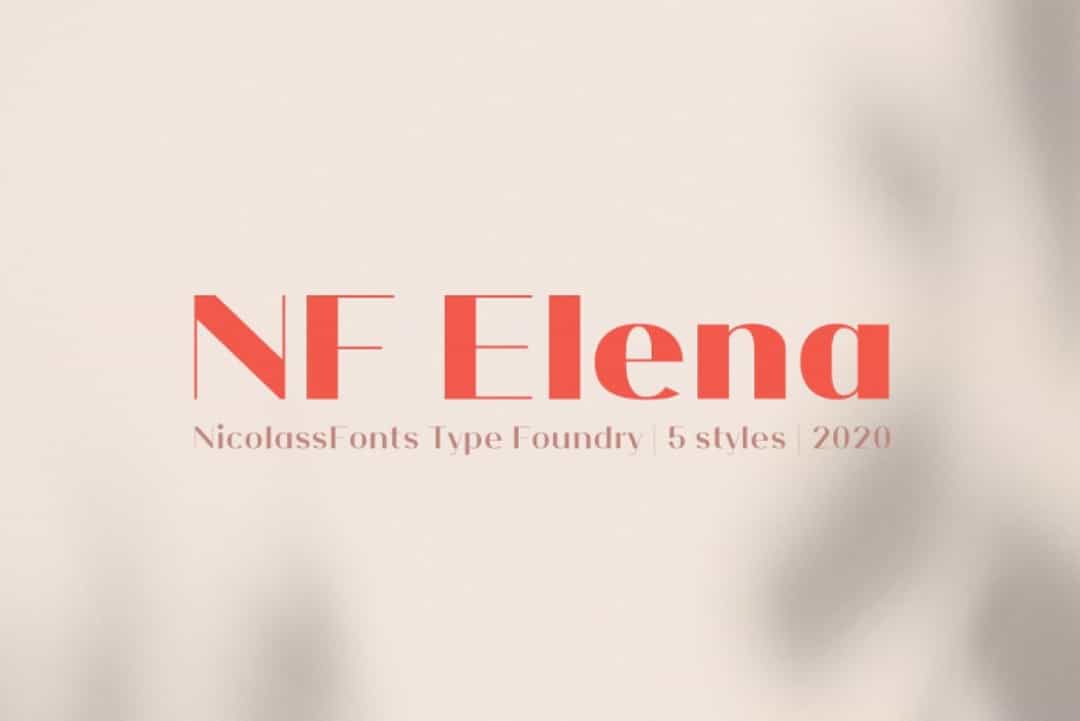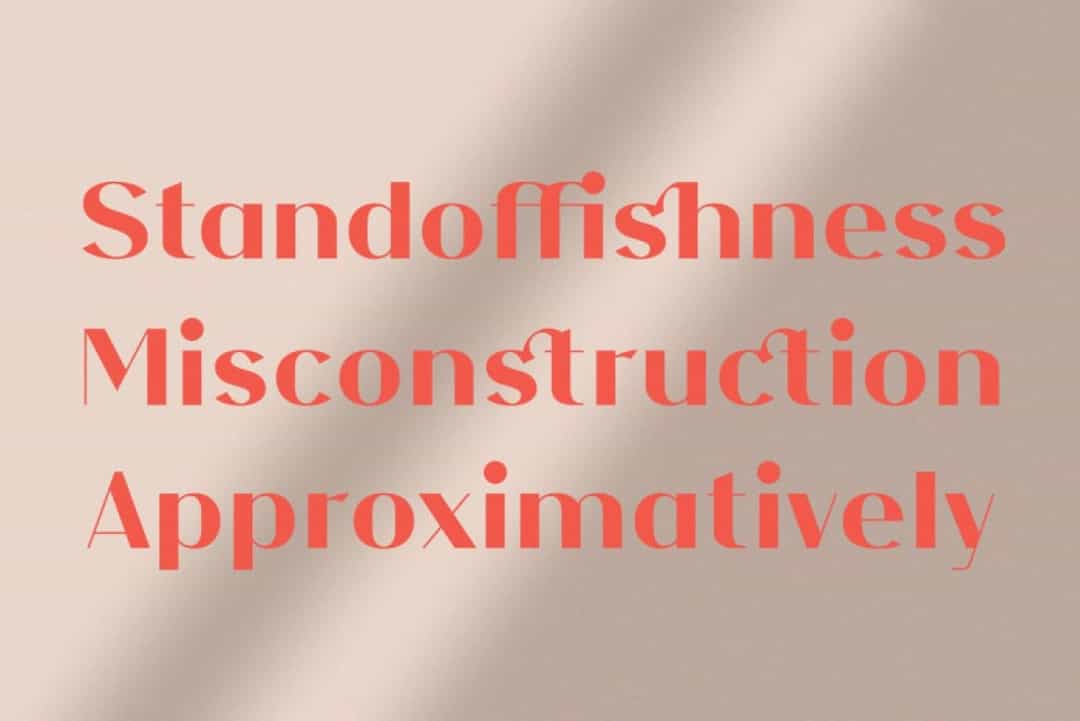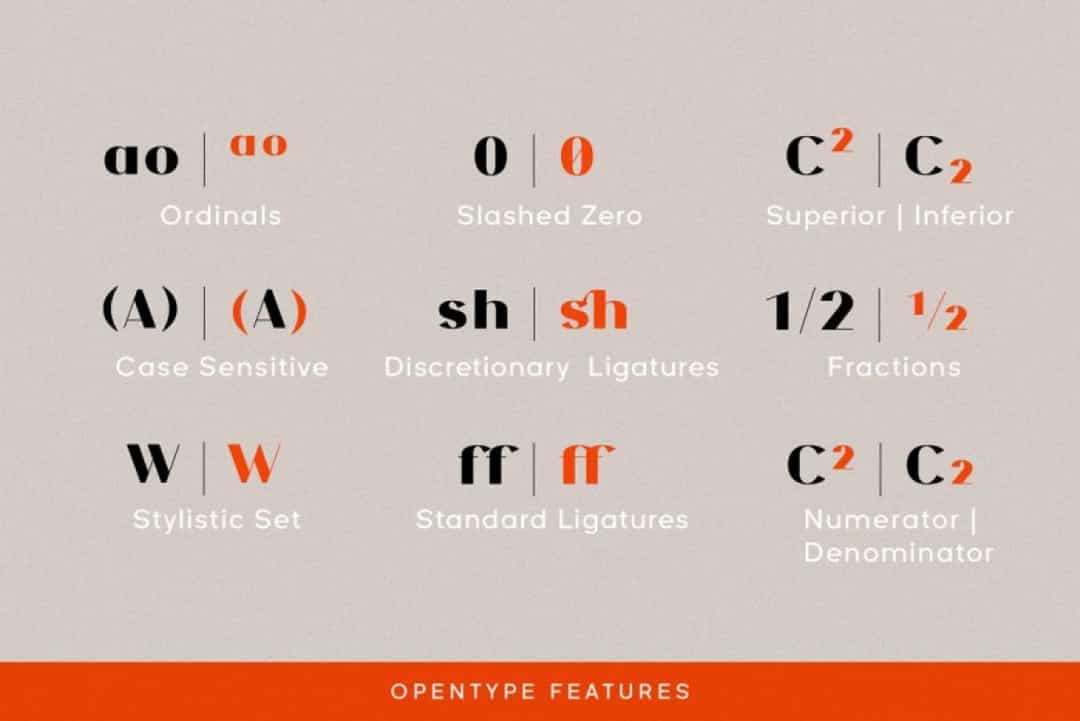
Nikolay Savchuk designed NF Elena on the basis of Katerina Sans-serif typeface. This font is perfect for graphic design and display use and would work great in newspapers, magazines and books as well as websites, branding or advertising projects.